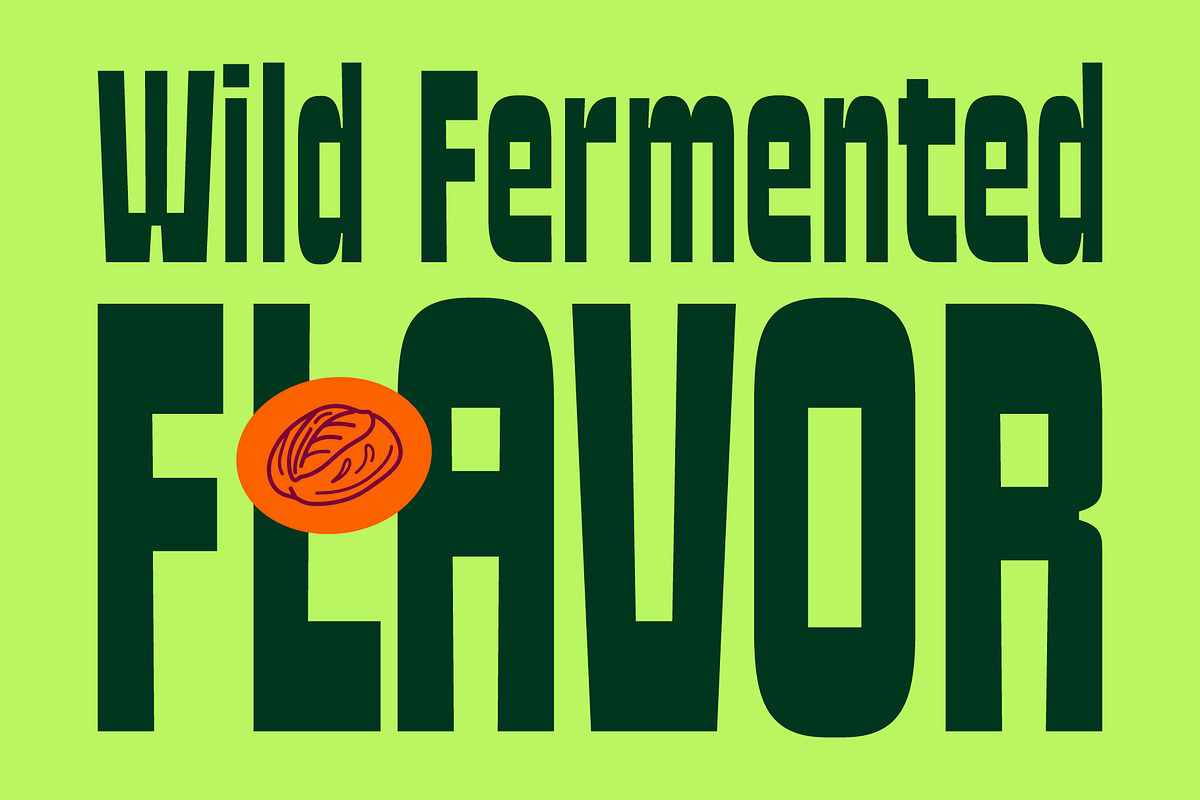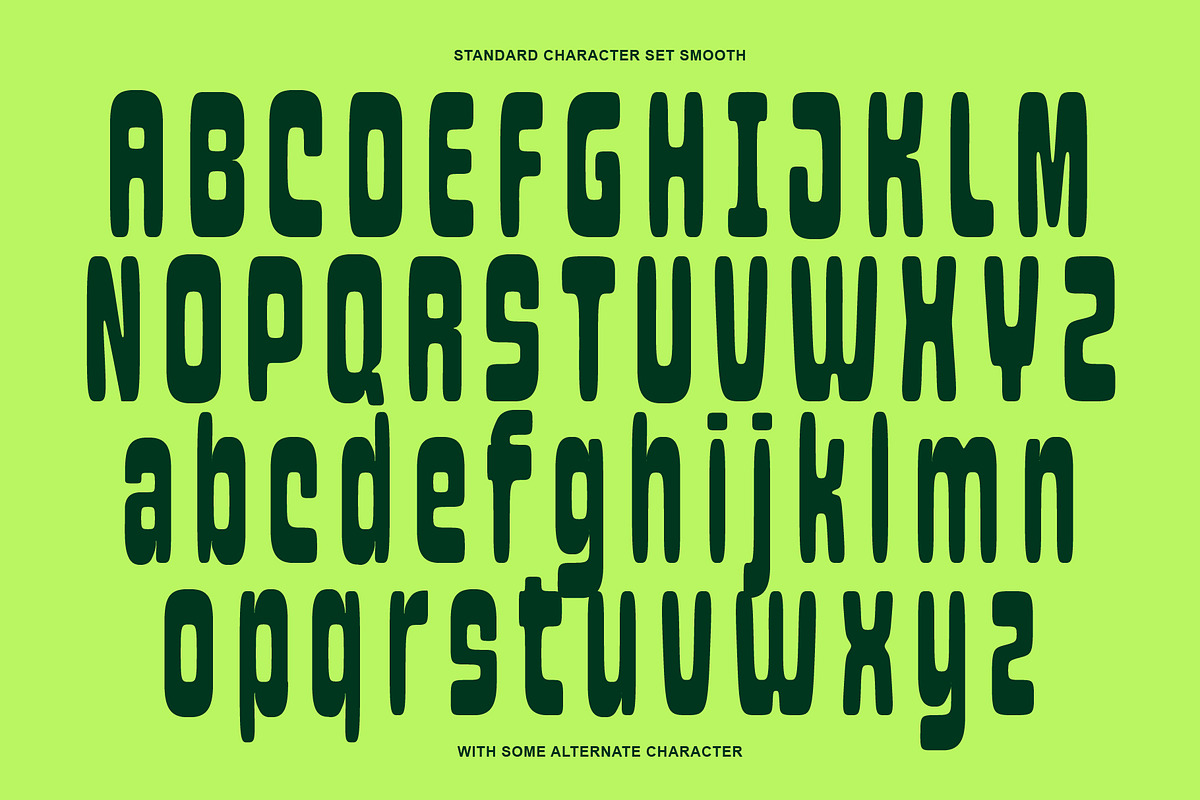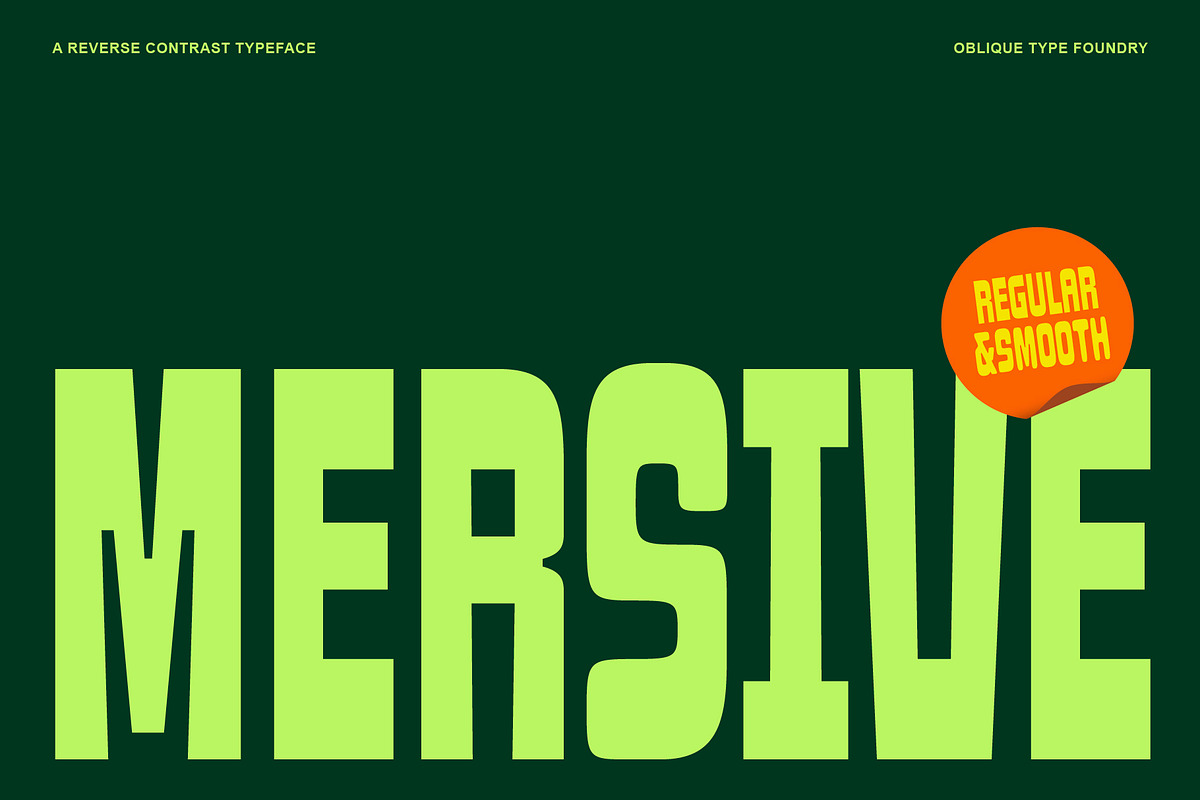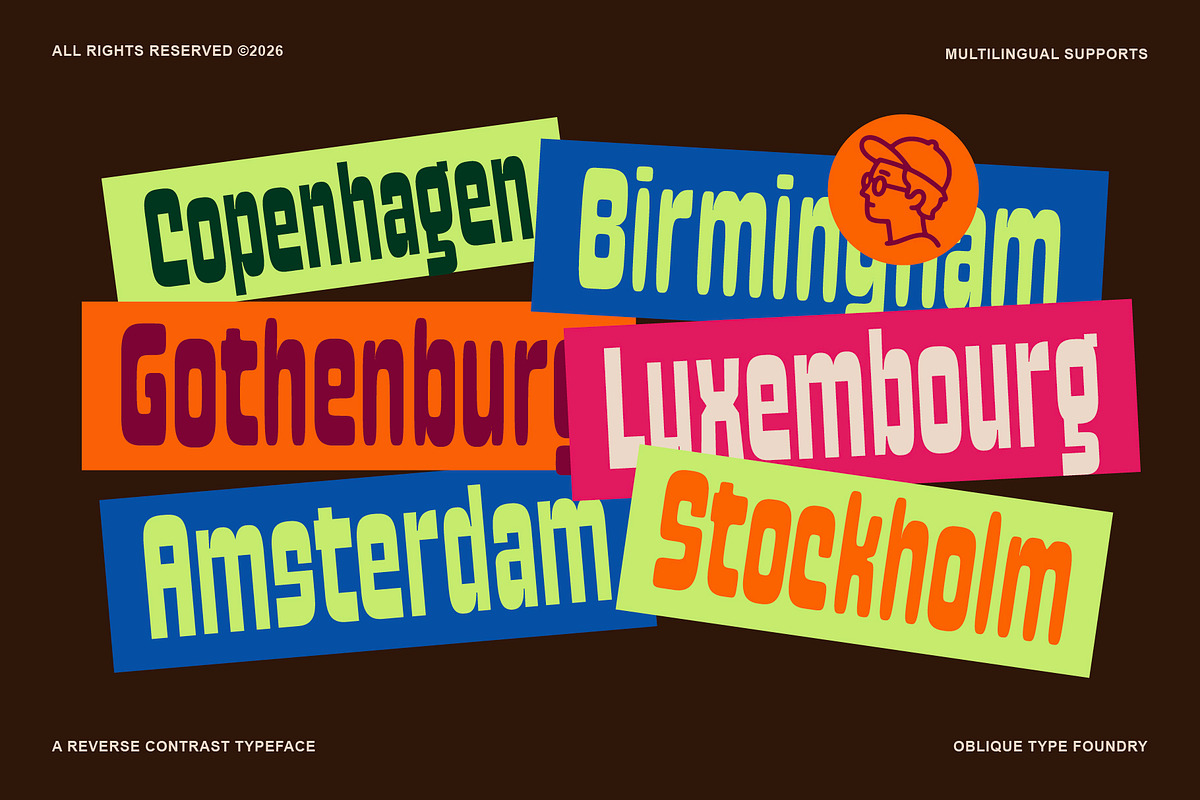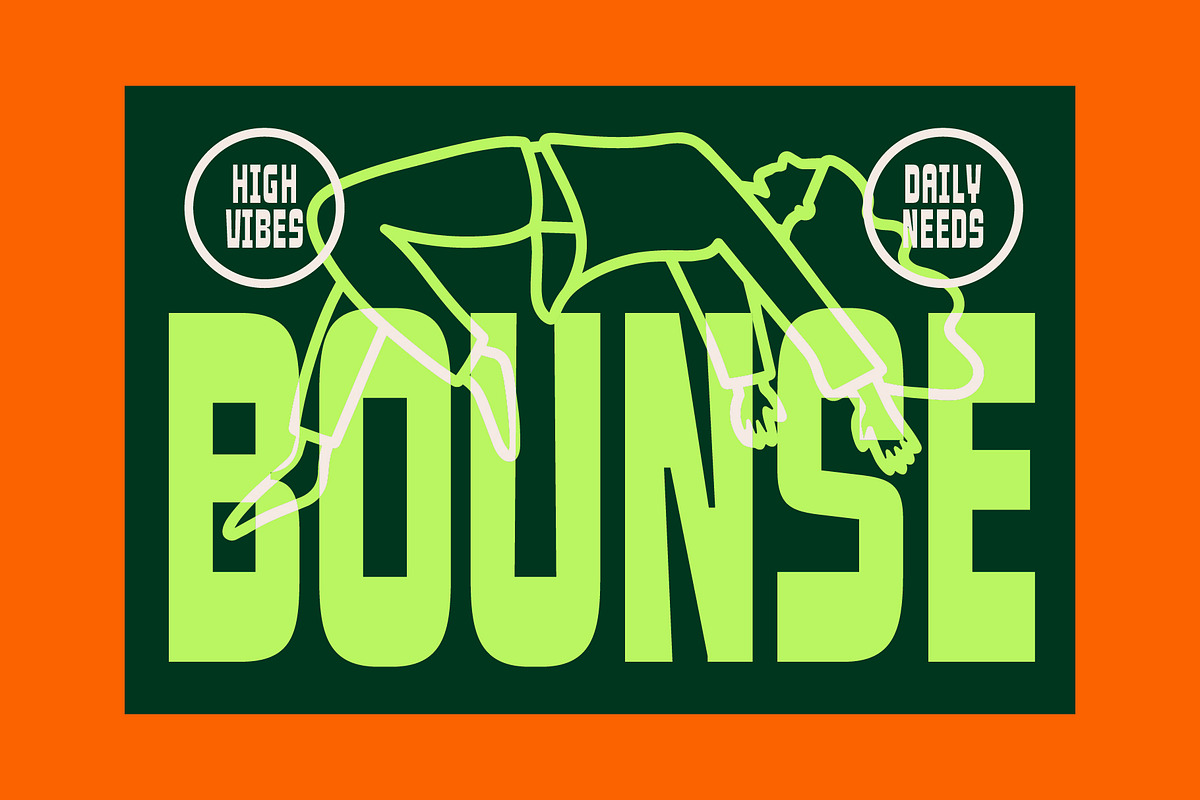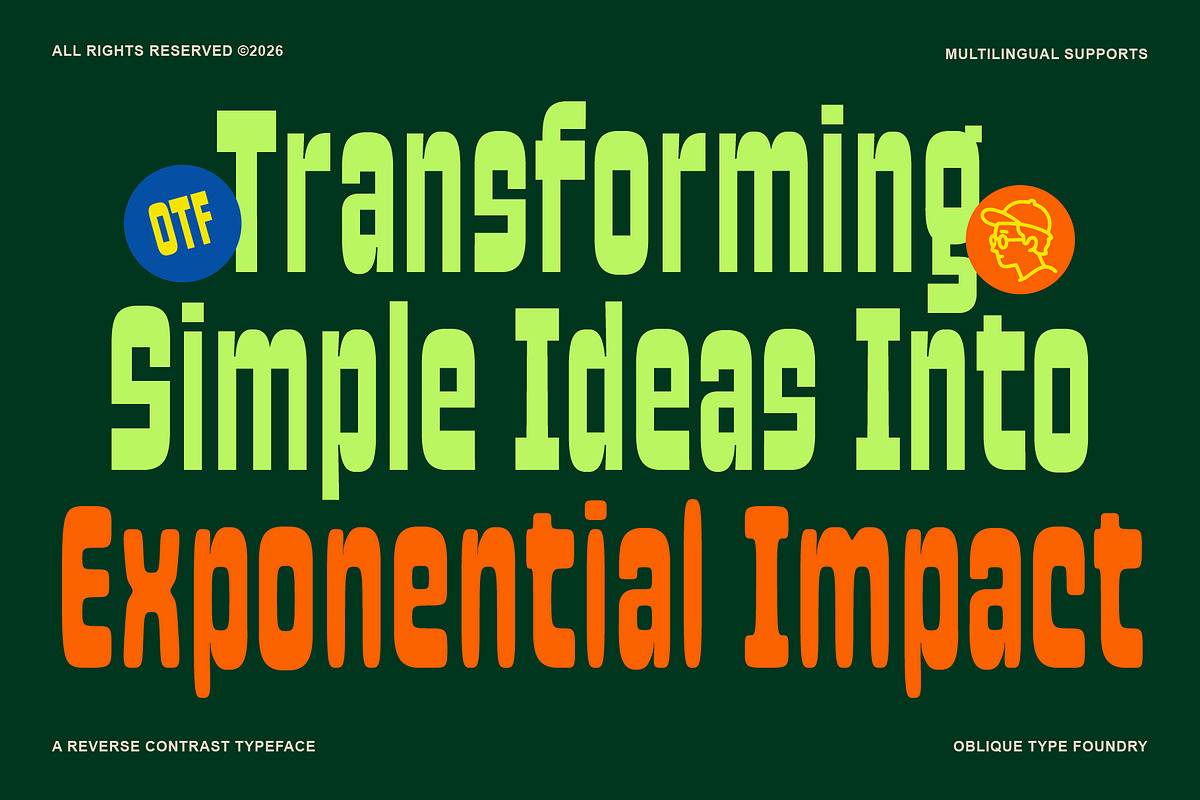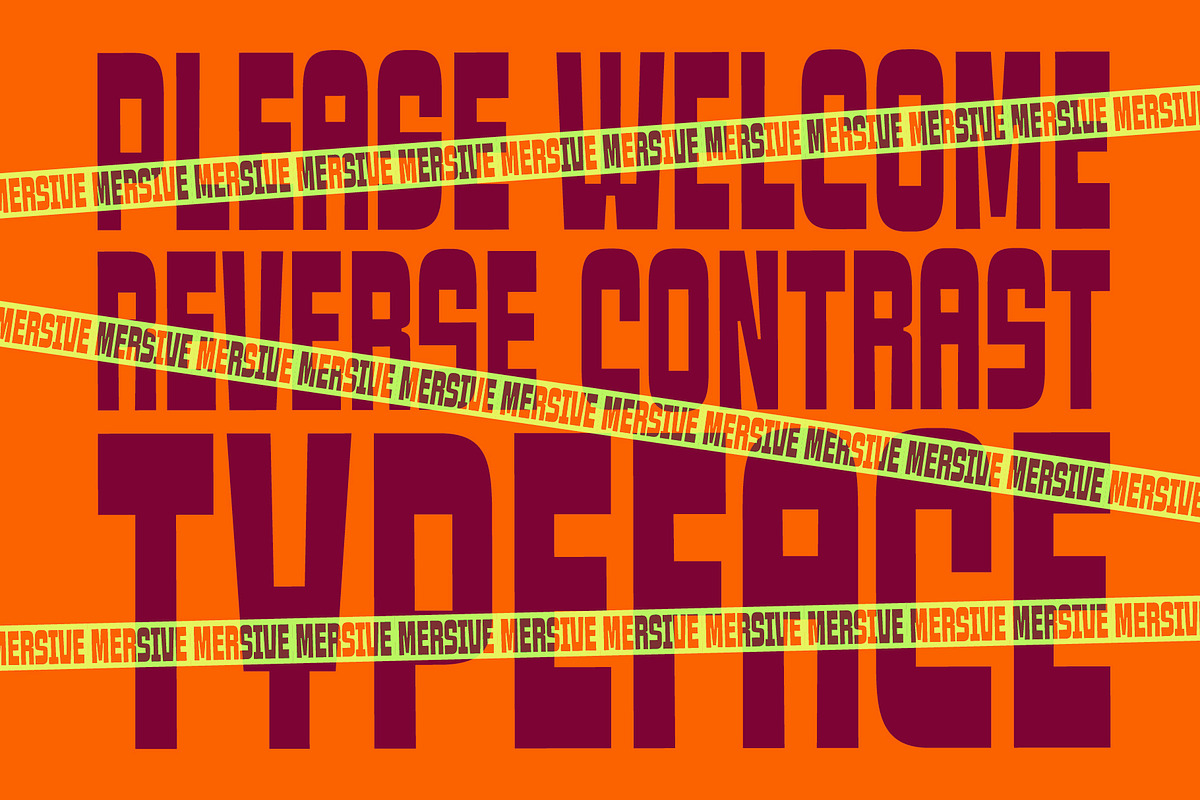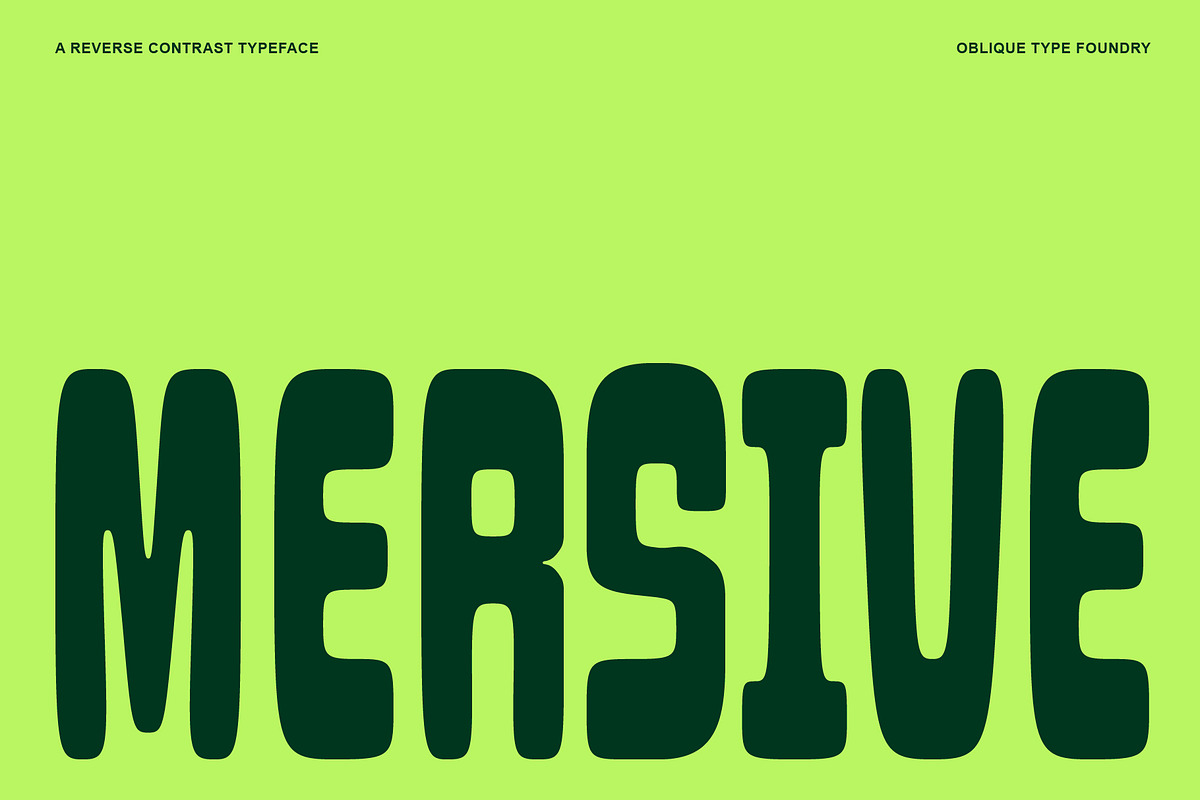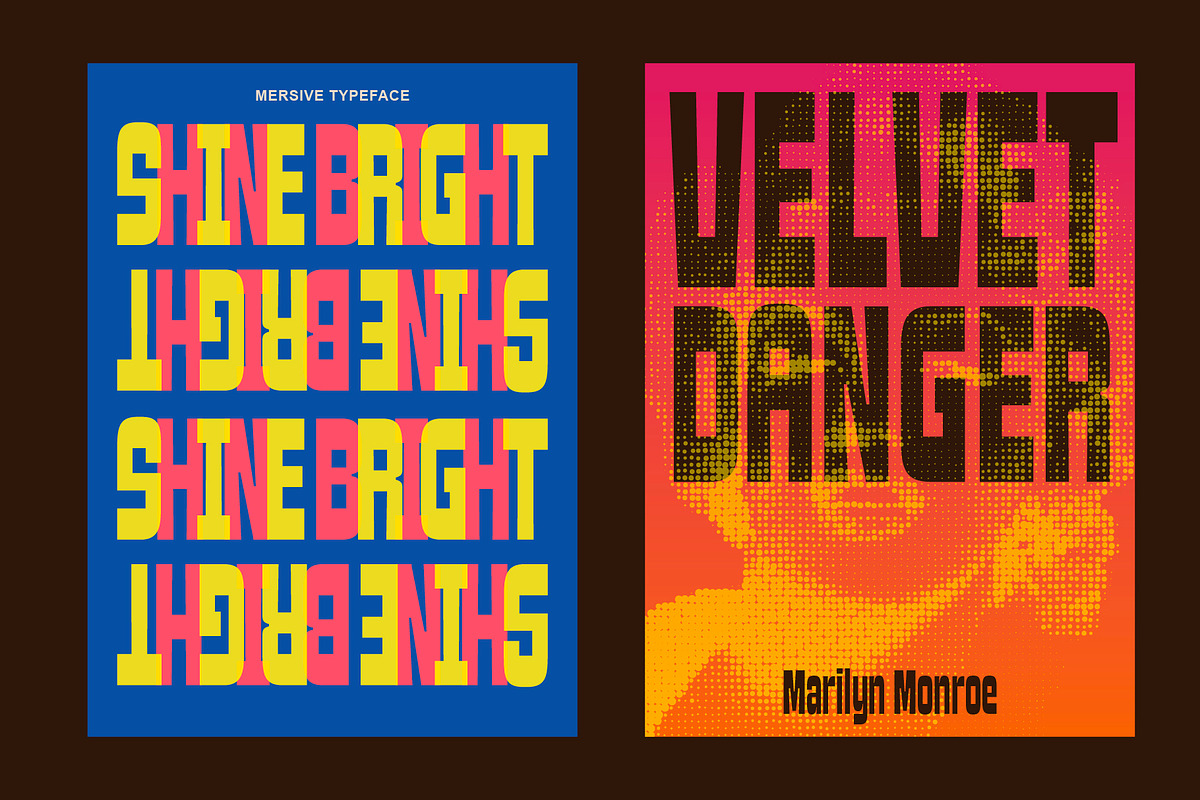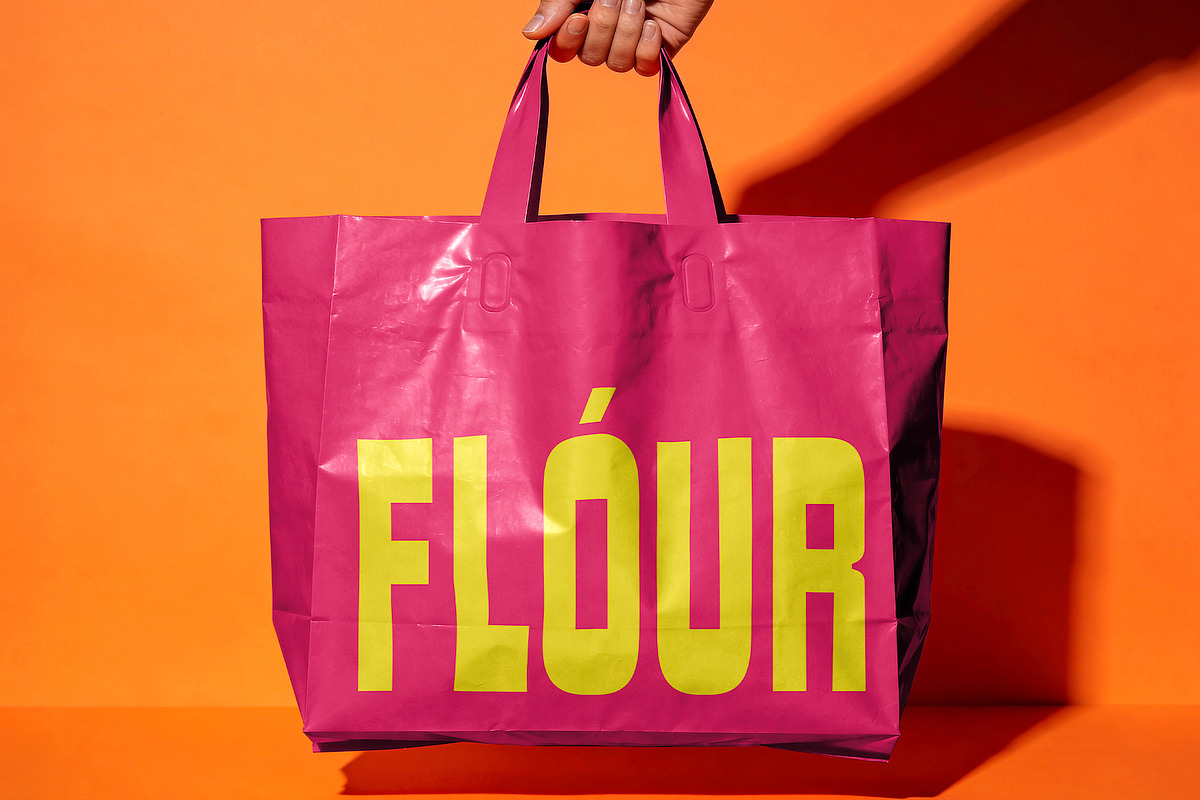
Oblq Mersive
Oblq Mersive is a bold reverse-contrast display font crafted to make a powerful statement. Featuring condensed proportions, smooth curves, and distinctive vintage-inspired details, it brings a unique blend of retro charm and contemporary style to any project. Designed for maximum visual impact, Oblq Mersive works perfectly for logos, branding, packaging, posters, editorial headlines, merchandise, social media graphics, and advertising campaigns. Its strong personality and eye-catching letterforms ensure your designs stand out in crowded markets. Whether you're creating a modern brand identity or a nostalgic-inspired layout, Oblq Mersive delivers memorable typography with confidence, creativity, and exceptional display performance.